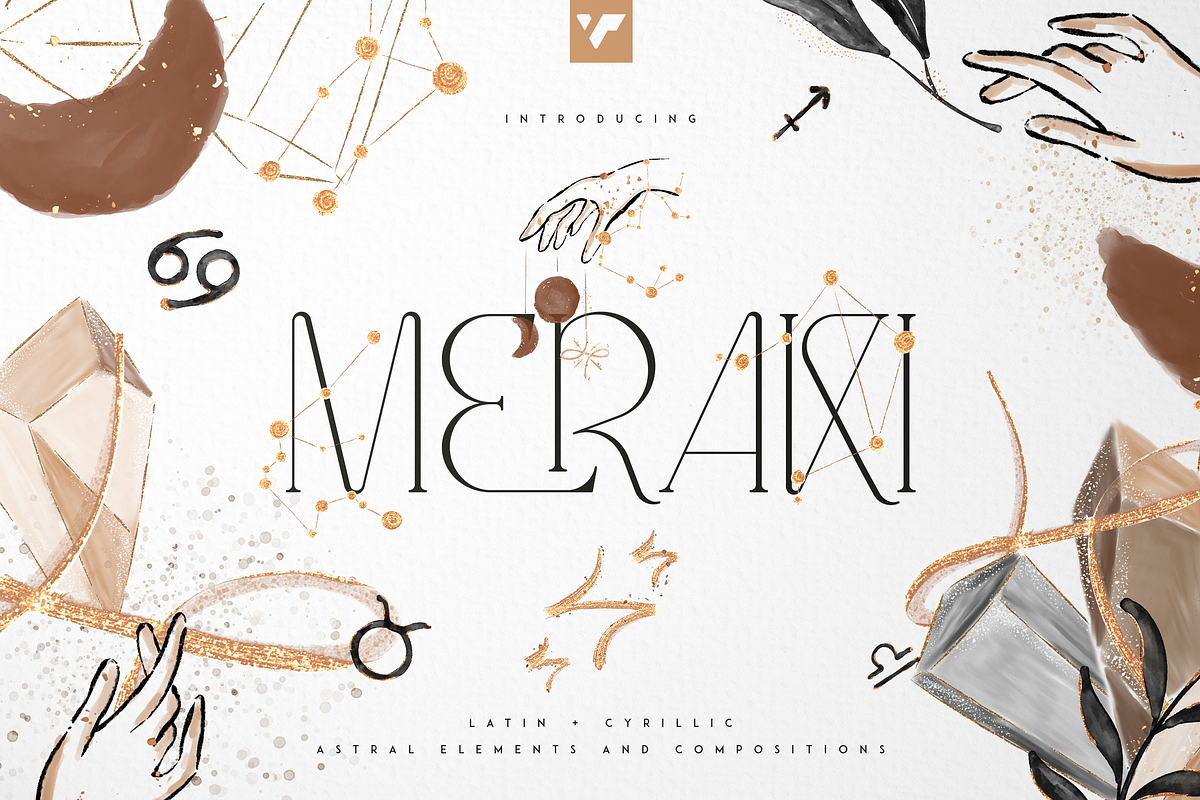
The Meraki Display Font + More Free Download is a bold and stylish typeface designed to make your designs stand out. With its striking, modern display style, this font is perfect for creating attention-grabbing headlines, logos, posters, and branding materials. Whether you're working on a creative project, a promotional campaign, or a unique brand identity, Meraki brings a strong and contemporary feel to your work.
This font pack includes additional bonus features, giving you more creative options and flexibility in your design process. From dynamic letterforms to stylish extras, Meraki provides everything you need to create captivating designs.